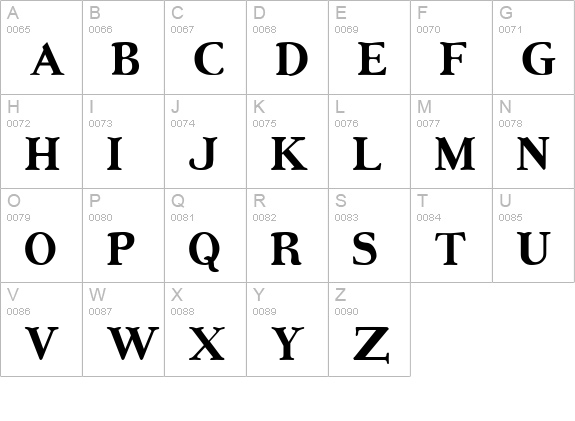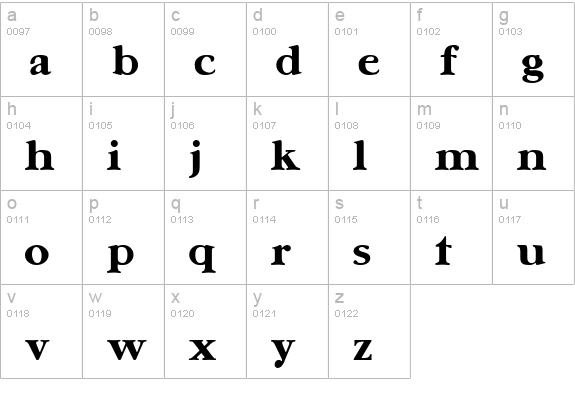
UrsaSerif Bold Font Details
UrsaSerif Bold is a strong, high-contrast variant in the UrsaSerif typeface family \xE2\x80\x94 well suited to headlines, attention-grabbing titles, and strong calls-to-action.
Introducing UrsaSerif Bold, a captivating and versatile font that combines elegance with modernity. This exquisite typeface is designed to make a bold statement, commanding attention and conveying a sense of timeless sophistication. UrsaSerif Bold boasts a distinct personality, with its clean lines and strong serifs that exude confidence and authority. Its perfectly balanced letterforms create a harmonious rhythm, ensuring legibility and readability across a wide range of applications. Whether used for headlines, titles, logos, or branding materials, UrsaSerif Bold adds a touch of class and professionalism to any project. Its versatility allows it to be seamlessly integrated into both print and digital designs, making it a valuable asset for graphic designers, advertisers, and creative professionals alike. But what makes UrsaSerif Bold even more exceptional is that it is freely available to download at FontsMarket.com. This means that anyone can access this remarkable font without any cost, allowing for unlimited creativity and accessibility. It's a rare opportunity to enhance your designs with a high-quality font that doesn't break the bank. Furthermore, UrsaSerif Bold is offered in various formats, ensuring compatibility with a wide range of design software and platforms. Its extensive character set includes uppercase and lowercase letters, numbers, punctuation marks, and special symbols, providing endless possibilities for expressive and engaging typography. Experience the beauty and versatility of UrsaSerif Bold for yourself. Download this remarkable font from FontsMarket.com, and unlock a world of design possibilities. Whether you're working on a professional project or simply experimenting with typography, UrsaSerif Bold will undoubtedly elevate your designs to new heights. Embrace the power of this free font and let your creativity soar.